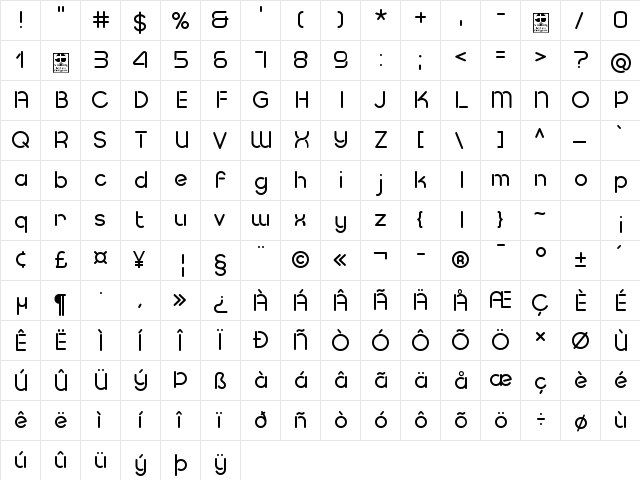
Pesta Stencil Demo Regular
| Foundry | StudioTypo |
| Designer | Mehmet Abac |
Design Context for Pesta Stencil Demo Typeface
Pesta Stencil Demo borrows the utilitarian aesthetic of stencil lettering, with its characteristic cutaways and no-frills construction lending an industrial edge.
Ideal for industrial branding, streetwear, military-adjacent aesthetics, and urban signage projects.
Pro Tip: Pair Pesta Stencil Demo with raw, utilitarian design elements — exposed concrete textures, flat colour, and minimal ornamentation suit it well.